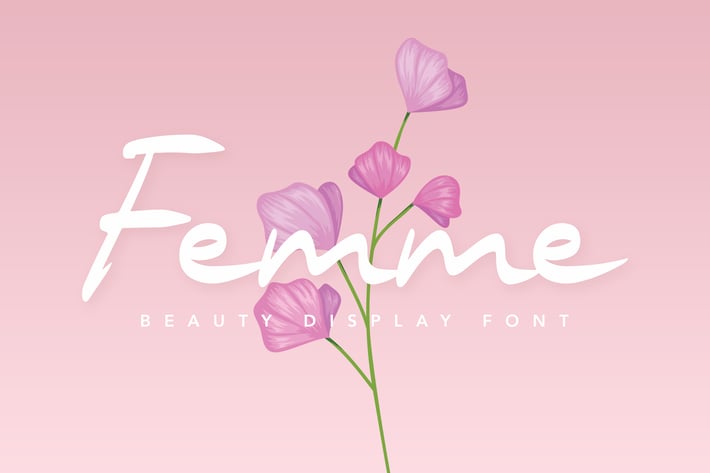
Femme Beauty Display Font
Introducing our new beauty display font, it's Femme!. Femme comes with a beauty looks and modern style. It's a perfect fit for the wedding, letter, movie title, city, landmark, business card - or a stylish text overlay to any background image.
+ Uppercase & Lowercase letters
+ Numbering and Punctuation